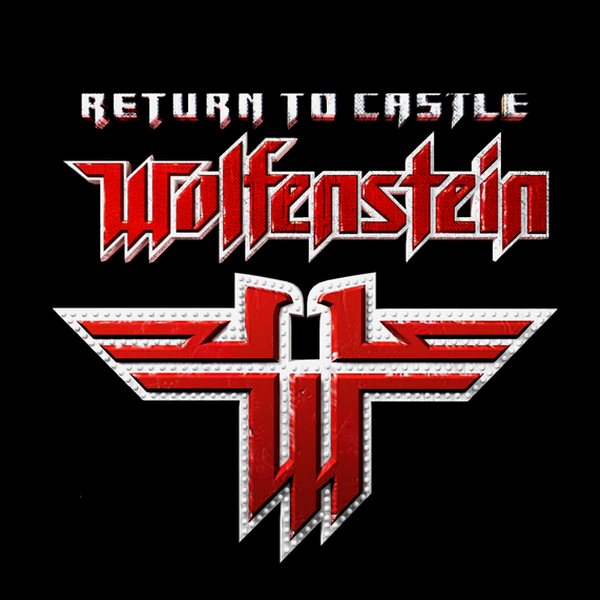
Return to Castle Wolfenstein Font
Fonts in UseReturn to Castle Wolfenstein is a World War II first-person shooter game developed by Gray Matter Interactive and published by Activision.
The game's logo showcases a distinctive double-headed eagle resembling a "W" for Wolfenstein with a matching font resembling Return to Castle. This font includes uppercase letters, numbers, limited punctuation marks, and accented letters. To access the eagle logo, simply type "#". The font can be downloaded for free from the Fonts Used Section.